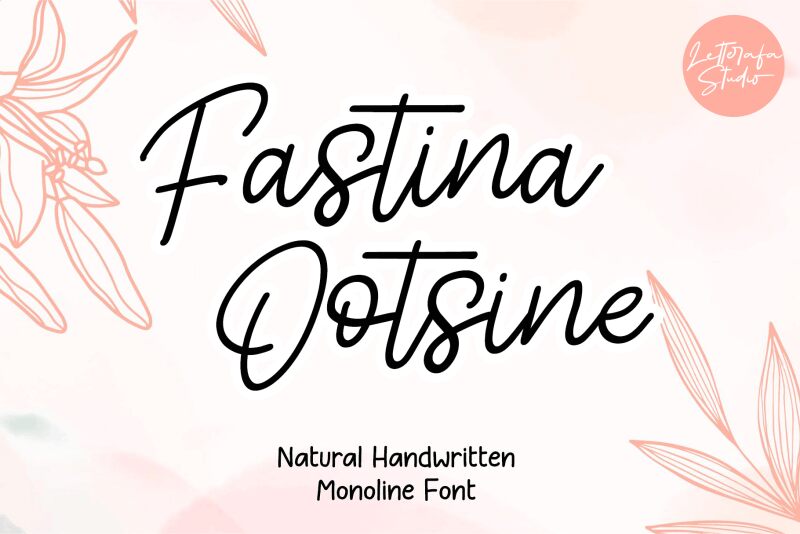
Fastina Ootsine font by Letterafa Studio is a light handwritten font with a whimsical and casual flowing style. Its organic curves create a charming aesthetic while its graceful shapes set the mood for an inviting, personalized vibe. The original characters present a lively handwritten feel with the same smooth consistency that you’d expect from professional typefaces.
The free handwriting font is perfect for use in welcoming titles, social media graphics, video thumbnails, and other digital presentations. It works as well in printed ads and publications such as magazines or newspapers that could use some fun spirit to cue user engagement. Use it also for logos, branding visuals, or aside voluptuous illustrations in baby clothing packaging.